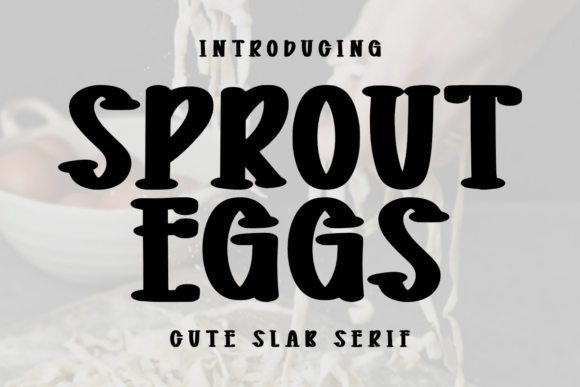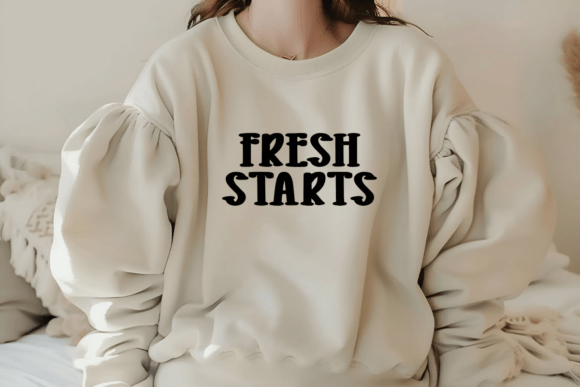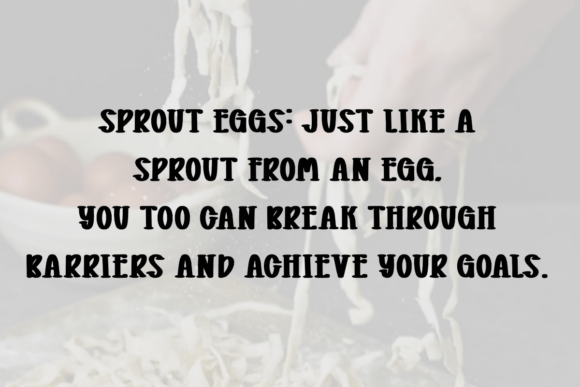
Sprout Eggs Font: A Rustic Slab Serif for Farmhouse Branding & Cricut Crafts
About the Sprout Eggs Font
The wait is over! The incredible Sprout Eggs Font is now available for your design toolkit. Sprout Eggs is a bold and playful slab serif font with a touch of vintage charm. Its thick, rounded serifs and quirky letterforms make it perfect for rustic branding, culinary packaging, farmhouse signage, or children’s content. It evokes a cozy, homestead feel that’s both friendly and fun.
Sprout Eggs Font Usage Examples
Sprout Eggs Font Example